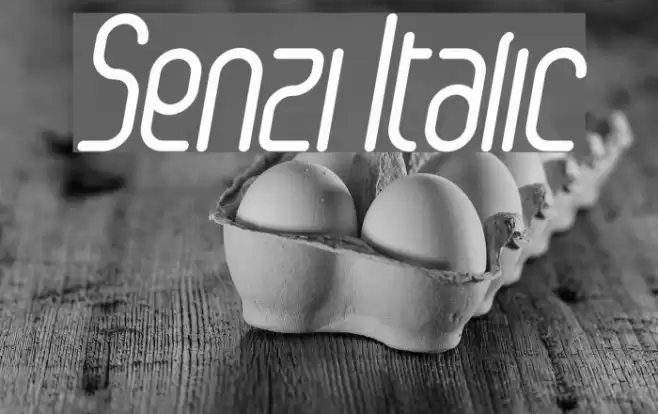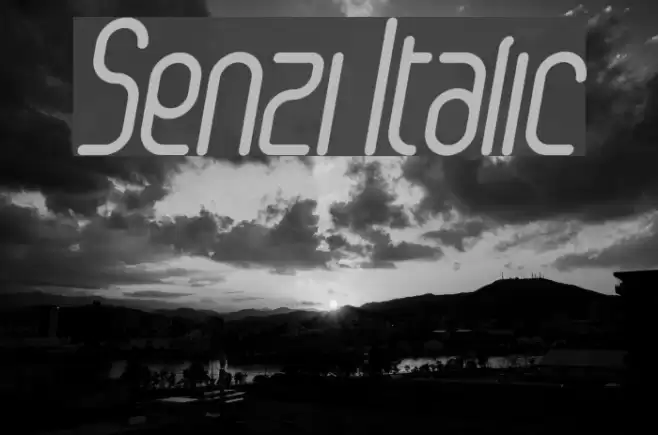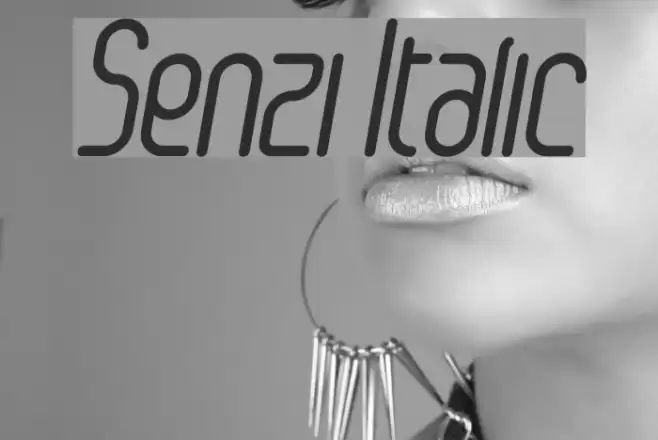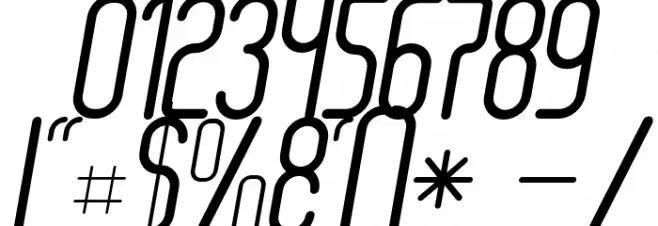
Senzi Italic Font
Senzi Italic Description
This font exhibits a sleek, modern design with a distinct italic slant, giving it a dynamic and forward-moving appearance. The characters are elongated and narrow, contributing to a condensed width that maintains readability while maximizing space efficiency. The strokes are consistent in thickness, offering a low contrast that enhances its clean and streamlined look. The rounded edges of the letters provide a soft, approachable feel, while the overall geometric structure ensures a contemporary aesthetic. This font is versatile, suitable for various applications where a modern and stylish impression is desired.
A sleek, modern italic font with elongated, narrow characters and low contrast from Uncategorized fonts.
- Proposed Projects: Ideal for branding, advertising, and editorial design where a modern, stylish look is needed.
- Use Case: Headlines, Logos, Branding